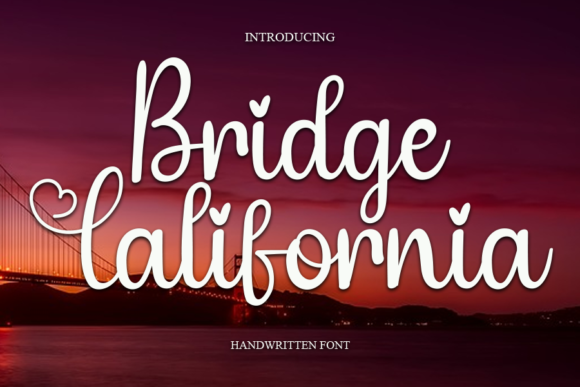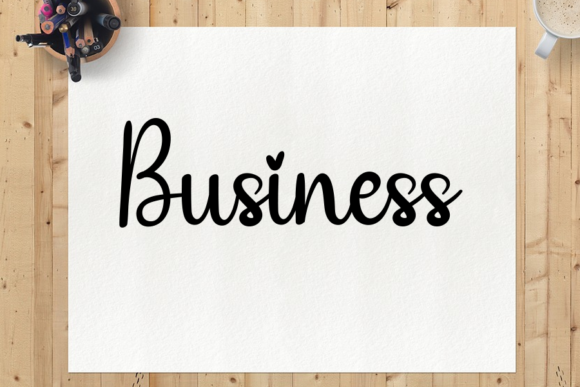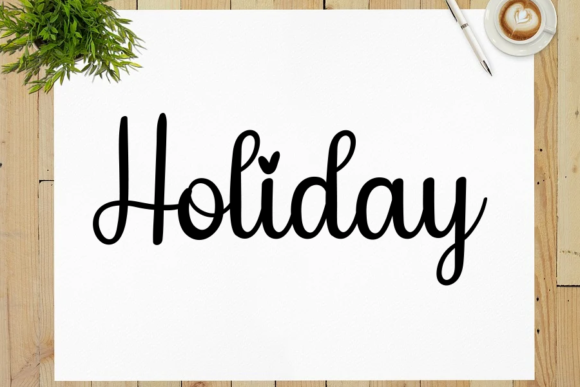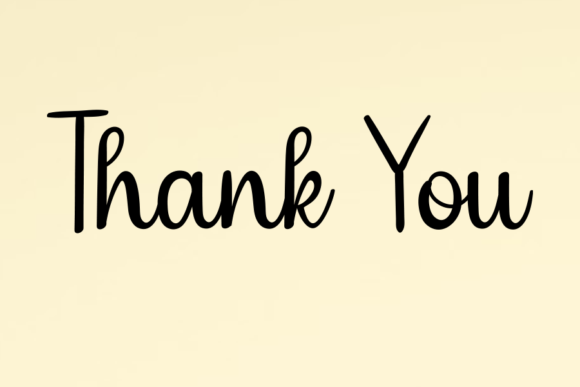
About Bridge California Font
Bridge California is a delicate handwritten font that has a modern yet whimsical style. It will undoubtedly immerse your designs into a magical world.